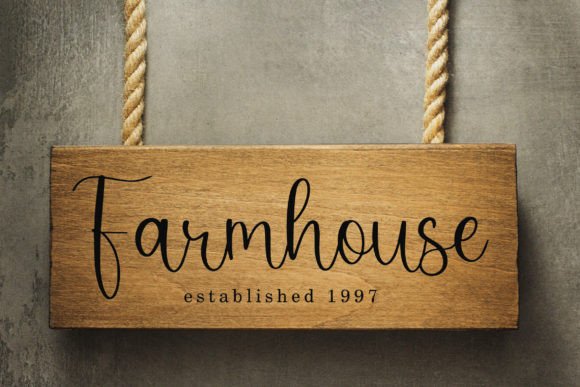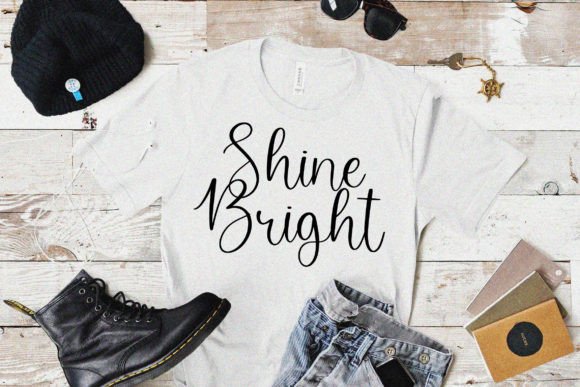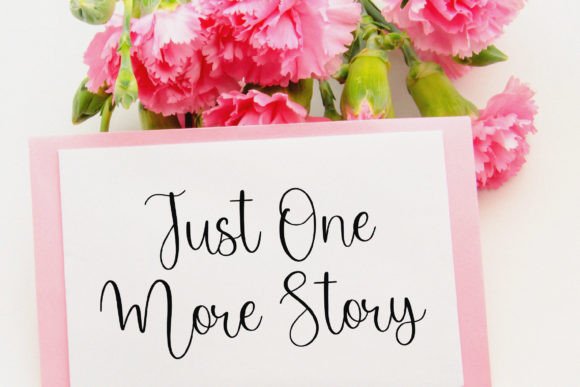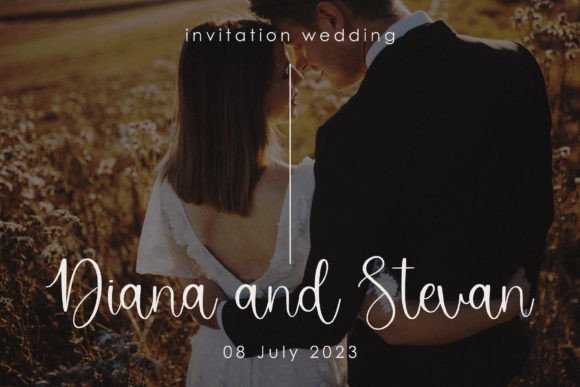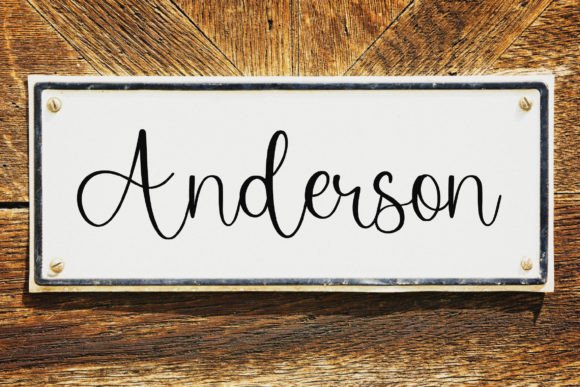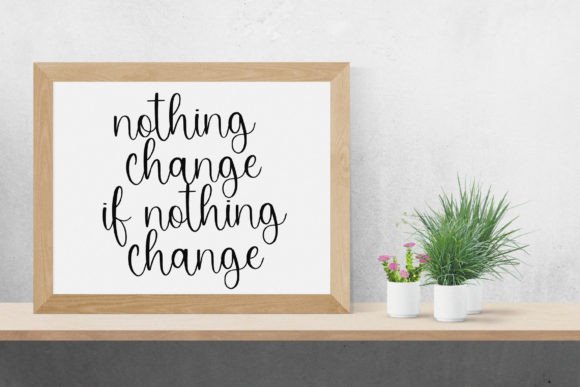
Introduction to Lovely Moment Font
Have you ever been captivated by the intricate details of a handwritten font, only to find yourself lost in the memories it evokes? For many designers, this is exactly the kind of creative moment that sparks inspiration for their next project. Whether it’s a product packaging design, a magazine layout, or a social media post, the right font can make all the difference.
That’s where Lovely Moment Font comes in – a beautiful, elegant handwritten font that’s perfect for a wide range of creative projects. With its soft, flowing lines and subtle flair, this font is sure to add a touch of sophistication to any design. In this article, we’ll explore the many uses of Lovely Moment Font and why it’s a valuable resource for designers of all levels.
Key Features of Lovely Moment Font
- High-quality design resource ideal for creative projects, offering a unique and elegant aesthetic.
- Perfect for use in various design applications, including digital art, graphic design, and print materials.
- Unique characteristics include a mix of modern and vintage elements, creating a distinctive and eye-catching visual effect.
Honest Review: Lovely Moment Font
I recently had the chance to work with the Lovely Moment Font, and I must say it’s been a pleasant experience. The font is perfect for any creative project that requires a touch of elegance and sophistication.
Here are some things that work well with the Lovely Moment Font:
- ✨ Beautiful and intricate design: The font features a unique blend of classic and modern elements, making it a great choice for projects that need a bit of flair.
- ✨ High quality: The font is well-crafted and looks great even at large sizes.
- ⚠️ Limited font weight options: While the font looks great in its standard weight, I wish there were more weight options available for added versatility.
- ⚠️ Not suitable for bold, sans-serif designs: The font’s style is more suited to elegant, serif-based designs.
Overall, I’m impressed with the Lovely Moment Font and would recommend it to anyone looking for a high-quality, free design resource. Just be aware of its limitations, and you’ll be all set for a lovely design moment!
Some tips for getting the most out of the Lovely Moment Font include experimenting with different font sizes and colors, and combining it with other design elements to create a unique look. Common use cases for this font include creating social media graphics, flyers, and brochures.